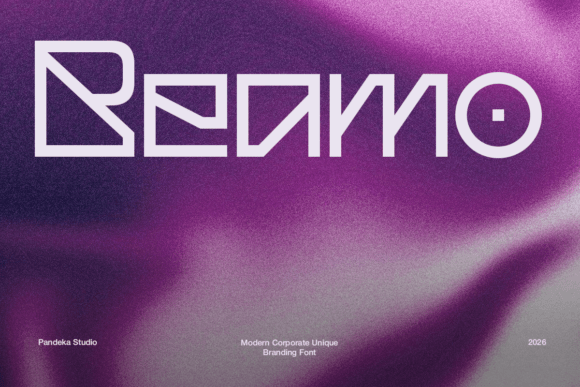
Introducing Beamo Font: The Modern Branding Font for Futuristic Designs
In the world of typography, fonts play a crucial role in creating a visual identity for brands, products, and services. A well-designed font can elevate a brand’s image, convey its message, and leave a lasting impression on its audience. Beamo Font is a modern branding font that embodies a futuristic and geometric style, perfect for creating clean, sleek, and innovative visual identities. In this article, we’ll explore the features, benefits, and uses of Beamo Font, and why it’s an excellent choice for designers and crafters.
The Unique Features of Beamo Font
Beamo Font boasts a unique and distinctive design, characterized by its minimalist structure and experimental shapes. The font’s letterforms are carefully crafted to combine simplicity with innovation, making it perfect for technology branding, corporate identities, digital interfaces, posters, editorial layouts, fashion campaigns, and modern logo design. The sharp, futuristic aesthetic of Beamo Font gives every project a bold and sophisticated presence, making it ideal for designers who want to create a lasting impression.
Beamo Font Styles: Regular and Slant
Beamo Font is designed with two styles: Regular and Slant. The Regular style offers a clean and straightforward look, while the Slant style adds a touch of dynamism and creativity. This flexibility allows designers to choose the perfect style for their projects, whether it’s for a startup logo, sci-fi visuals, UI design, music covers, advertising, social media graphics, or modern display typography.
Benefits of Using Beamo Font
Beamo Font offers several benefits for designers and crafters, including:
- Clean and Sleek Design: Beamo Font’s minimalist structure and experimental shapes create a clean and sleek design that’s perfect for modern branding and visual identities.
- Flexibility: With two styles to choose from, designers can adapt Beamo Font to suit their project’s needs.
- Readability: Despite its futuristic aesthetic, Beamo Font maintains excellent readability, making it suitable for a wide range of applications.
- Stylish Character: Beamo Font’s unique letterforms add a touch of style and sophistication to any project.
Use Cases for Beamo Font
Beamo Font is an incredibly versatile font, suitable for a wide range of applications, including:
- Startup Logos: Beamo Font’s modern and futuristic design makes it perfect for startup logos that want to make a bold statement.
- Sci-Fi Visuals: The font’s sharp, futuristic aesthetic is ideal for sci-fi visuals, such as movie posters, book covers, and video game designs.
- UI Design: Beamo Font’s clean and sleek design makes it suitable for UI design, including mobile apps, websites, and software interfaces.
- Music Covers: The font’s stylish character and futuristic aesthetic make it perfect for music covers, including album art and single covers.
- Advertising: Beamo Font’s bold and sophisticated presence makes it ideal for advertising, including print ads, digital ads, and billboards.
- Social Media Graphics: The font’s modern design and flexibility make it suitable for social media graphics, including Facebook posts, Twitter headers, and Instagram stories.
- Modern Display Typography: Beamo Font’s unique letterforms and futuristic aesthetic make it perfect for modern display typography, including billboards, posters, and signage.
In conclusion, Beamo Font is a modern branding font that’s perfect for designers and crafters who want to create clean, sleek, and innovative visual identities. Its unique features, flexibility, and benefits make it an excellent choice for a wide range of applications, from startup logos to sci-fi visuals, UI design, music covers, advertising, social media graphics, and modern display typography. With Beamo Font, designers can add a touch of sophistication and futurism to their projects, while maintaining readability and style.